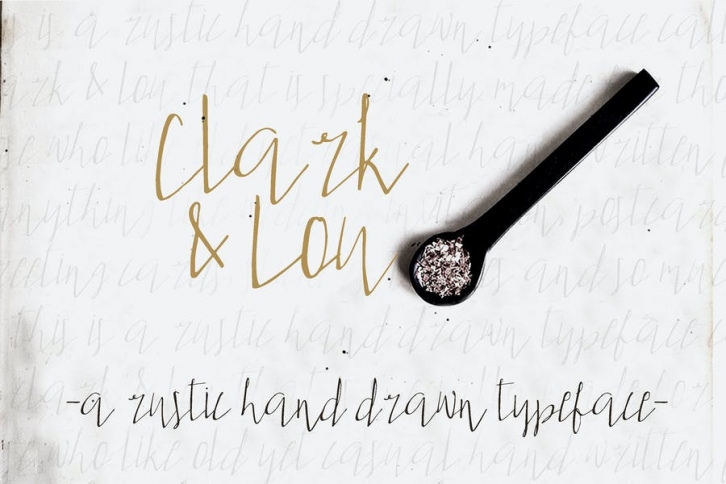
Clark & Lou is a rustic, feminine hand writing typeface that you can use for special occasion: greeting card, wedding invitation, letter, label, tag and other design work. You decide!
Clark & Lou Font Features:
• Hand Drawn Font
• Accented Glyphs